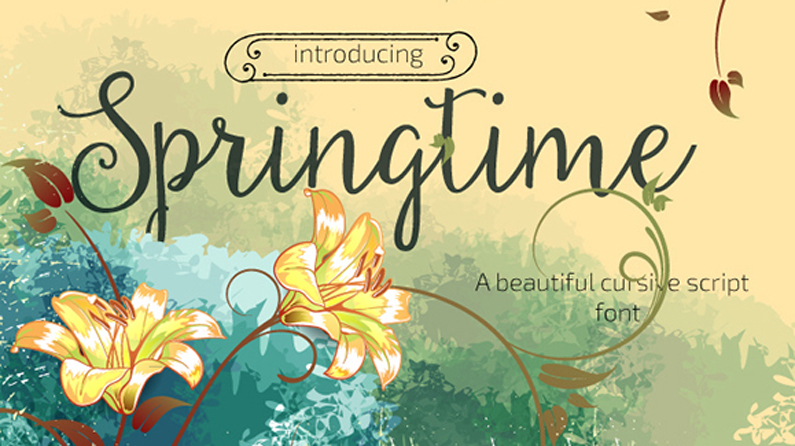
Spring Time Font
Looking for a **Spring Time Font** to use? Look no further, you can find it here for your personal projects. This font is called **Kissita** and it’s very much like the popular trendsetter font. You can even access this font in the **Google Fonts** library. Want to add a touch of spring to your creations? Try this font out today!
In case you are seeking out a terrible script right in your layout then it’s right proper right here. You can get this ailerons font without a rate. This font is fallen in the splendor of define fonts.
Style of Spring Time Font Free